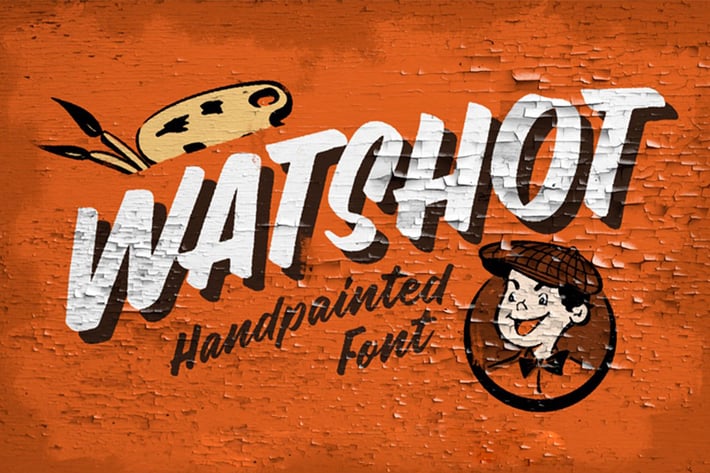
watshot Font
watshot typeface Inspired by the art of sign painting, watshot is the ideal display font for announcing a big event, sale or anything important. This display font comes with an excellent assortment of special graphic-glyphs that won't be ignored.
watshot comes with upper and lowercase characters, punctuation, numerals,supports international languages and OpenType features with Stylistic Alternates,watshot type is very best choice fonts for : ,quotes, Posters, Logos, Print Ads, Digital Ads, Promotion Product, video bumper, etc.